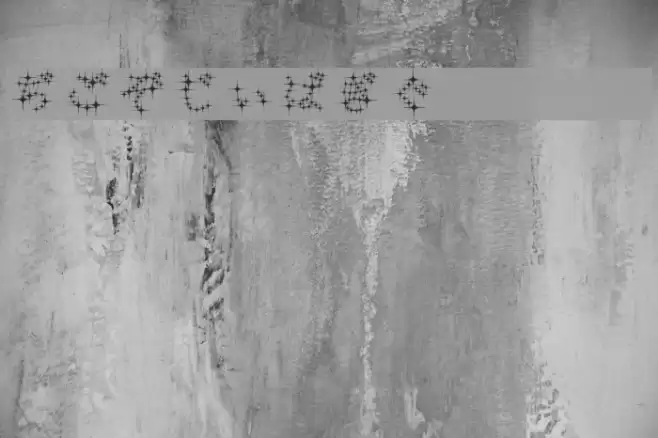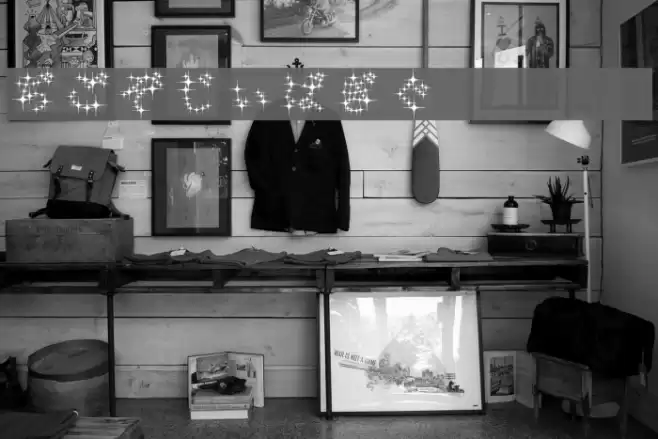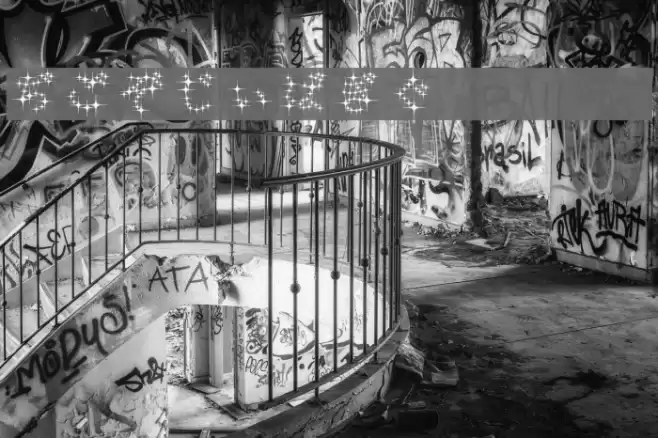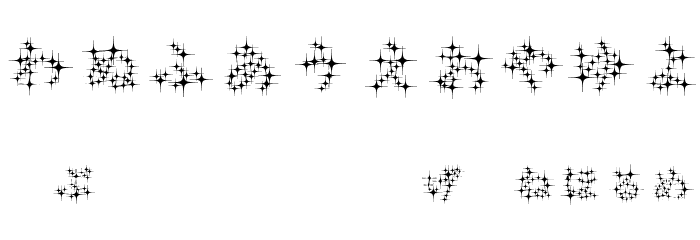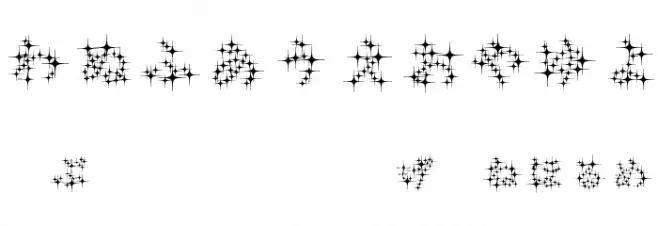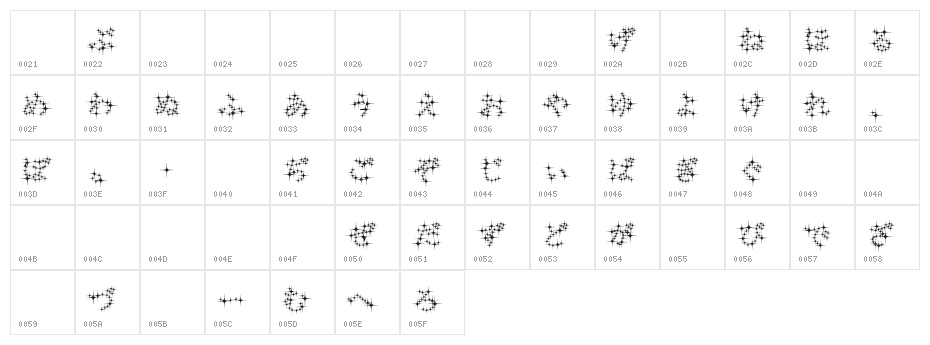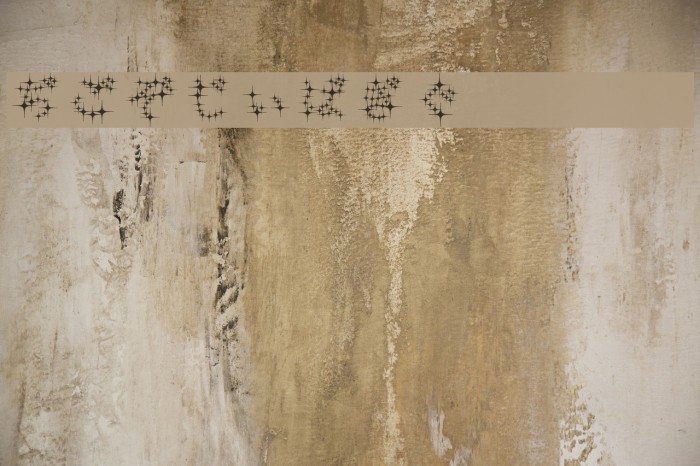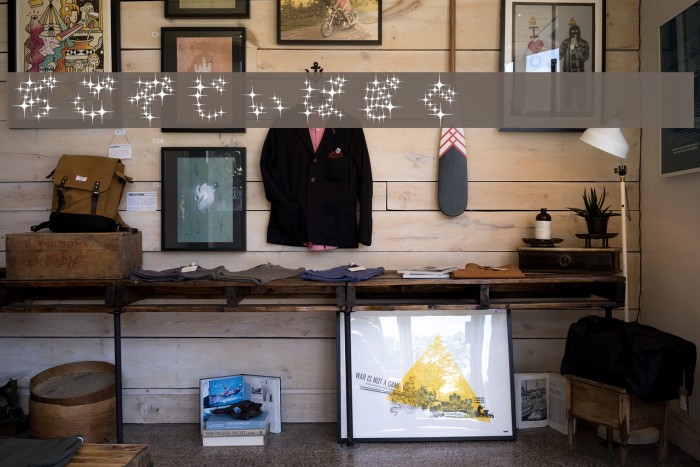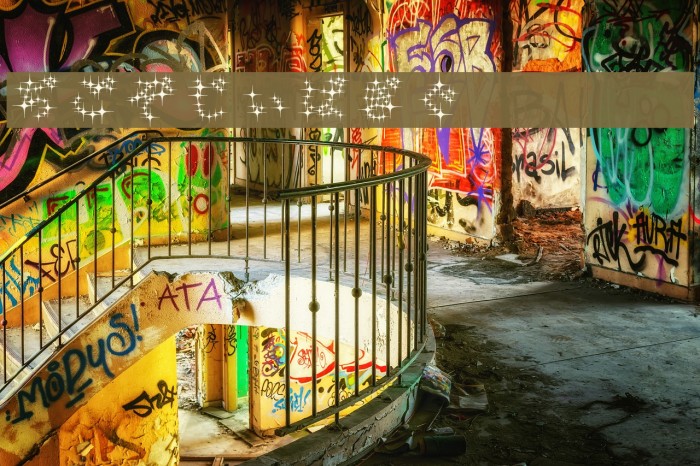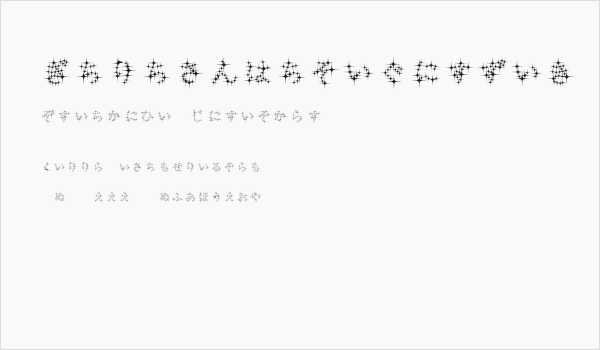
GalaxyfaceHirReg Font
GalaxyfaceHirReg Description
This font features a unique and decorative style, characterized by a series of star-like sparkles that form each letter and number. The design is highly ornamental, with each character appearing as if it is made up of tiny, twinkling stars. This gives the font a celestial and whimsical appearance, making it stand out as a decorative choice. The characters are evenly spaced, and the overall look is consistent across uppercase, lowercase, and numerical characters. The special characters also maintain this sparkling theme, ensuring a cohesive design throughout.
A decorative font with star-like sparkles forming each character from Asian fonts.
- Proposed Projects: Ideal for projects that require a magical or celestial theme, such as event invitations, fantasy book covers, or themed party decorations.
- Use Case: Logos, Invitations, Themed Events